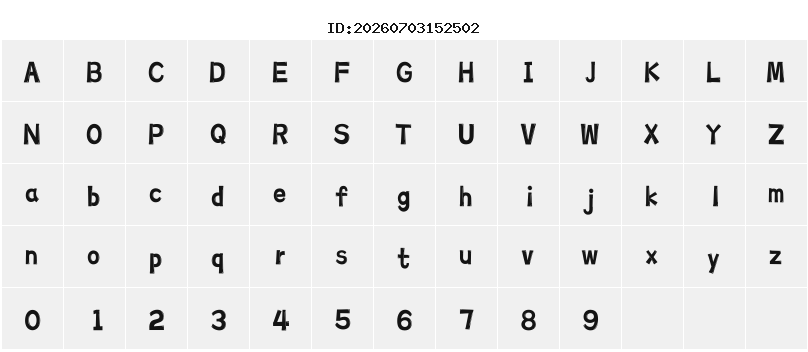
311-上首梦想体 Preview
• Font Name: 311-上首梦想体
• Font ID: 311-SSMingXiangTi:Version 4.00
• Full Font Name: 311-上首梦想体
• Version: Version 4.00 May 13, 2024
• PostScript Name: 311-SSMingXiangTi
• Character Count: 7567
• Manufacturer: 上首造字
About 311-上首梦想体.ttf
311-上首梦想体.ttf is a modern, elegant sans-serif font designed for ultimate readability and visual harmony. Perfect for branding, headlines, web design, and print materials.